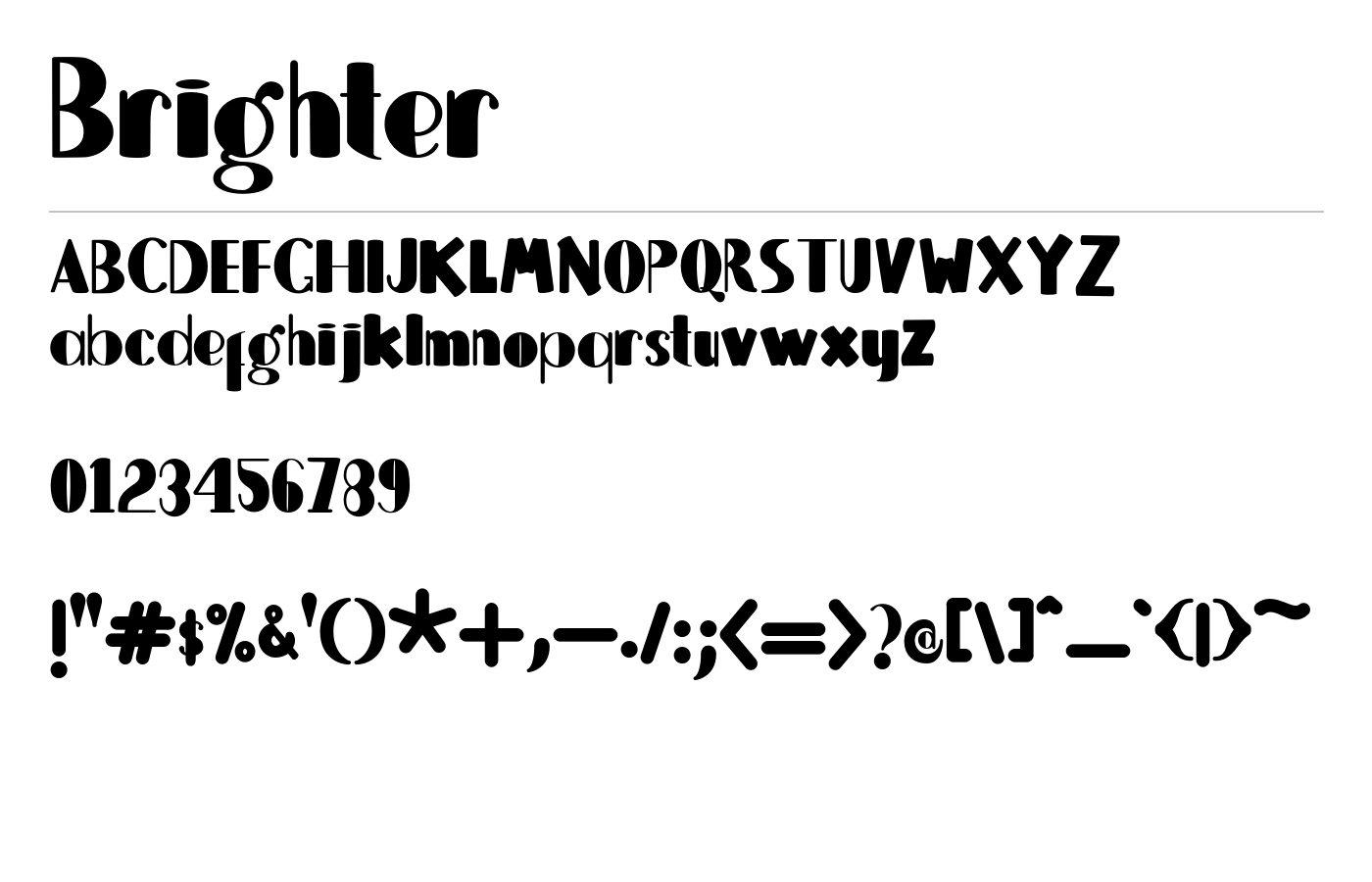
Brighter Font is a bold and playful serif typeface with a strong contrast between thick and thin strokes, featuring unique, rounded serifs that give it a lively, handcrafted feel. Its quirky letterforms and high x-height make it eye-catching and perfect for creative logos, posters, and packaging where a fun and distinctive personality is desired. This font works well in display settings, adding a bright, energetic touch to brands aiming to stand out with charm and originality.
Brighter Font
About Brighter Font